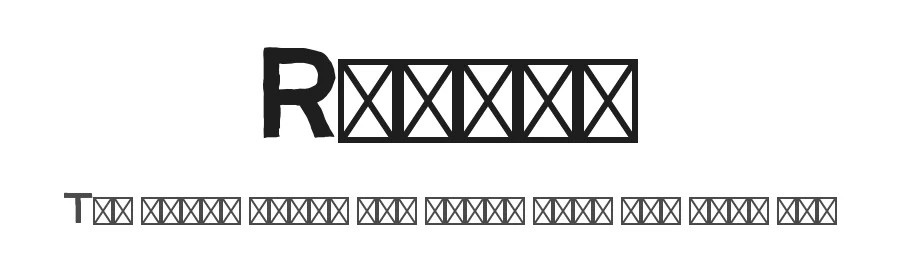
About Artisual Deco Font
Artisual Deco is a decorative font designed by Måns Grebäck. It includes 554 glyphs, a black weight, OTF (CFF) format, and 318 languages. Artisual Deco is free to download; check the license details on this page before commercial use. Decorative fonts like Artisual Deco work best for logos, posters, packaging, and standout headlines.
| Designer | Mans Greback, Rizka Prayuda |
Artisual Deco ships with 1 OpenType feature you can switch on in apps that support them (Illustrator, InDesign, Affinity, Figma, CSS font-feature-settings).
Artisual Deco Font is a decorative font that shines as a display or heading face. Pair it with a clean sans-serif or serif font for body text — the contrast creates a clear hierarchy while the two styles stay balanced and easy to read.
Artisual Deco Font
by Måns Grebäck